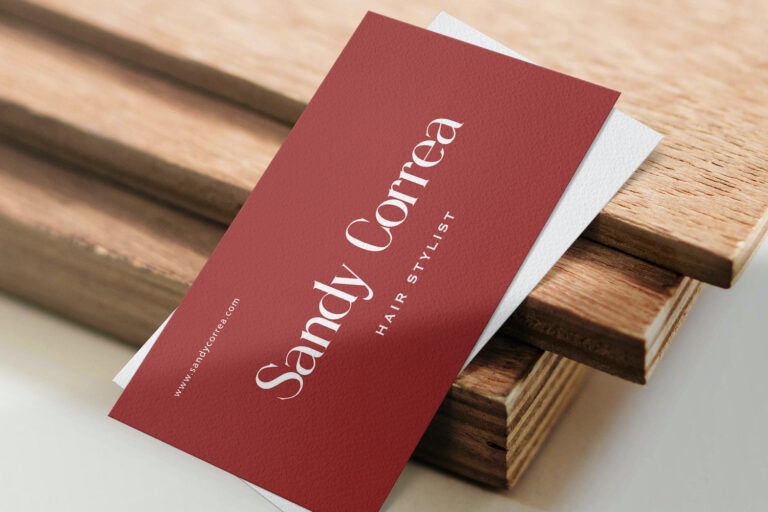
Sandy King draws from the timeless language of classical serif typography—echoing the confidence of old publishing houses, engraved nameplates, and heritage storefront lettering. It carries that familiar historical warmth, where every curve feels purposeful and every serif signals permanence.
With elegant high-contrast strokes, sharp refined serifs, and graceful proportions, Sandy King delivers a distinctly classic impression—polished, cultured, and quietly dramatic. Its heritage character is reinforced by a crafted, almost hand-finished rhythm: sturdy verticals anchor the forms while delicate hairlines add sophistication. Subtle OpenType stylistic alternates (including options for letters such as a, h, k, m, n, and t) allow you to shape the tone from restrained editorial to more expressive, signature-like display.
The result is an unmistakable aura of authority and prestige—ideal for luxury branding, formal invitations, editorial headlines, premium packaging, and logos that need to feel established and trustworthy.
Even in modern design contexts, Sandy King remains highly relevant: it pairs beautifully with clean sans-serifs, elevates minimalist layouts, and brings instant legacy to contemporary visuals.